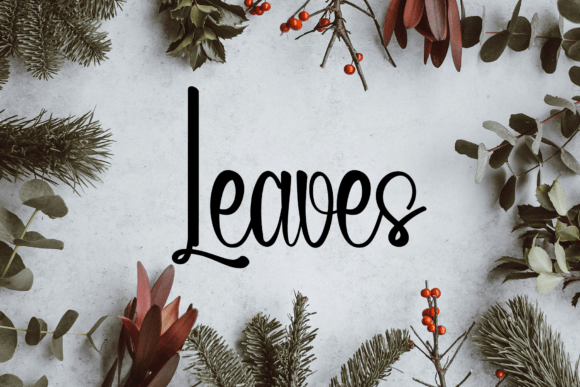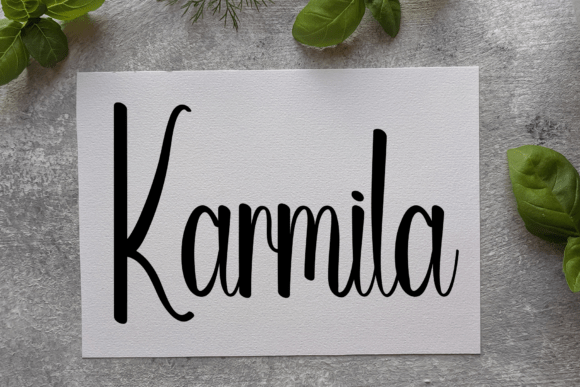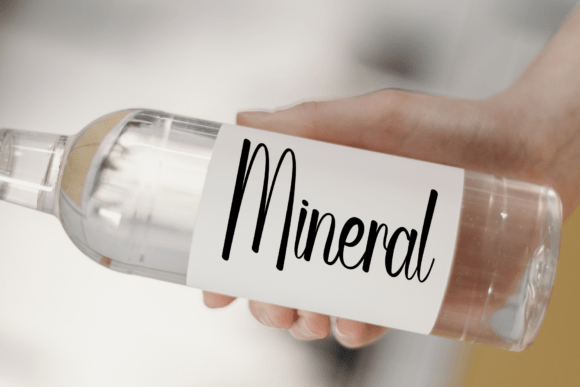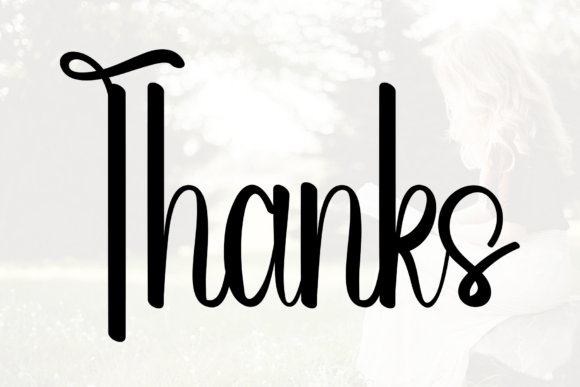
Introducing Aligments Font: Add a Cozy Accent to Your Design Projects
Are you looking for a beautiful and unique font to elevate your design projects? Look no further than Aligments Font! This sweet and beautiful handwritten font is perfect for adding a cozy accent to any design project you wish to create. Featuring characters that dance along the baseline, Aligments Font is sure to capture the attention of your audience and leave a lasting impression.
What is Aligments Font?
Aligments Font is a carefully crafted handwritten font that boasts a unique and charming style. The font features characters that are carefully designed to dance along the baseline, creating a sense of movement and fluidity. This distinctive feature sets Aligments Font apart from other fonts and makes it perfect for adding a touch of personality to your designs.
Key Features of Aligments Font
- Handwritten style: Aligments Font features a beautiful handwritten style that is perfect for creating cozy and inviting designs.
- Unique character alignment: The characters in Aligments Font are designed to dance along the baseline, creating a sense of movement and fluidity.
- Cozy accent: Aligments Font is perfect for adding a cozy accent to any design project, from invitations and greeting cards to blog posts and social media graphics.
- Versatile: Aligments Font can be used for a wide range of design projects, from formal to informal, and is suitable for use by designers, crafters, and DIY enthusiasts.
How to Use Aligments Font in Your Design Projects
Aligments Font is easy to use and can be incorporated into a wide range of design projects. Here are a few ideas to get you started:
- Invitations and greeting cards: Add a personal touch to your invitations and greeting cards with Aligments Font.
- Blog posts and social media graphics: Use Aligments Font to add a cozy accent to your blog posts and social media graphics.
- DIY projects: Aligments Font is perfect for use in DIY projects, such as crafting and scrapbooking.
- Branding and packaging: Use Aligments Font to create unique and eye-catching branding and packaging designs.
Benefits of Using Aligments Font
There are many benefits to using Aligments Font in your design projects. Here are a few:
- Unique and eye-catching: Aligments Font is a unique and eye-catching font that is sure to capture the attention of your audience.
- Cozy and inviting: Aligments Font has a cozy and inviting style that is perfect for creating designs that are warm and welcoming.
- Versatile: Aligments Font can be used for a wide range of design projects, from formal to informal.
- Easily readable: Aligments Font is easily readable, making it perfect for use in designs where clarity is important.
Tips for Getting the Most Out of Aligments Font
Here are a few tips for getting the most out of Aligments Font:
- Use it sparingly: Aligments Font is a statement font, so use it sparingly to add emphasis and interest to your designs.
- Experiment with colors and textures: Aligments Font looks great in a variety of colors and textures, so don’t be afraid to experiment and find the combination that works best for your design.
- Pair it with other fonts: Aligments Font pairs well with other fonts, so try pairing it with a clean sans-serif font for a contrasting look.
Aligments Font is a beautiful and unique handwritten font that is perfect for adding a cozy accent to any design project. With its distinctive character alignment and versatile style, Aligments Font is sure to capture the attention of your audience and leave a lasting impression. Whether you’re a designer, crafter, or DIY enthusiast, Aligments Font is a great addition to your font collection.